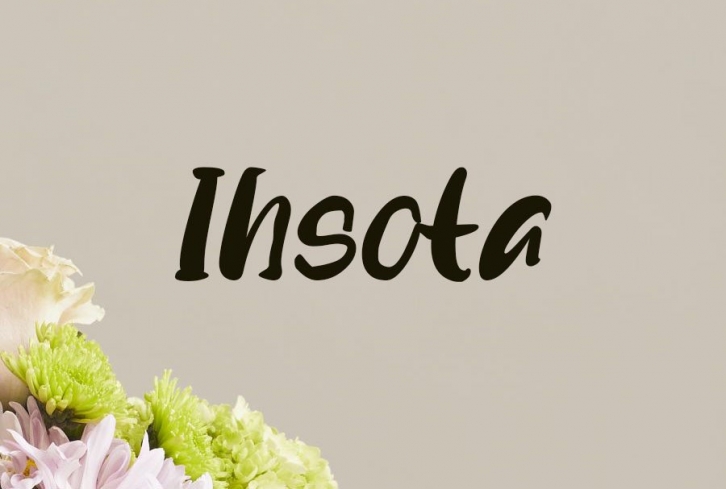
Ihsota is a chic and stylish script font. Whatever the topic, this font will be a wonderful asset to your font library, as it has the potential to enhance any creation.